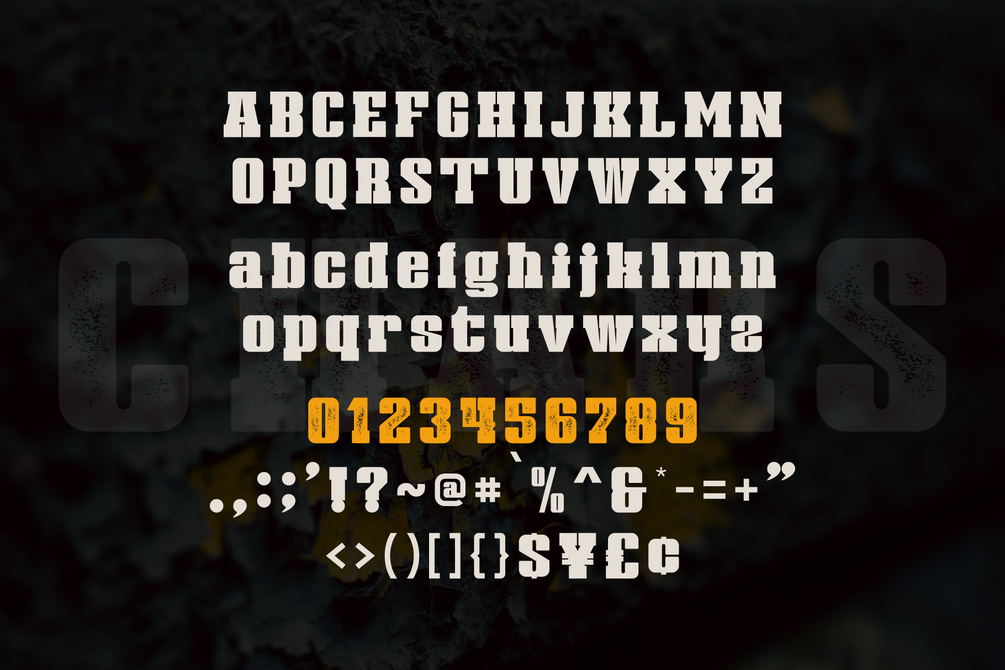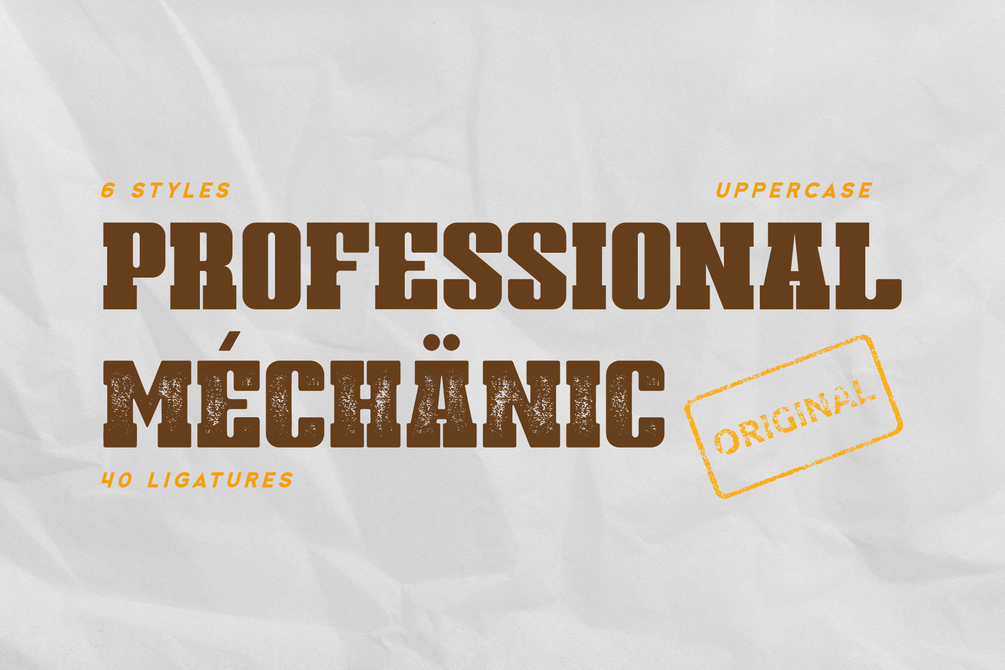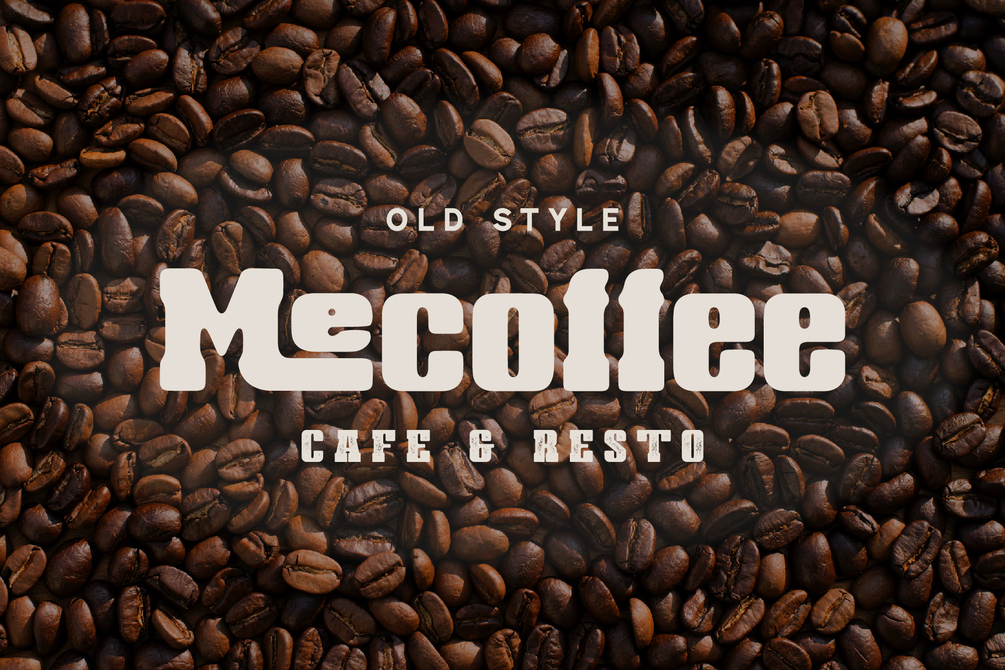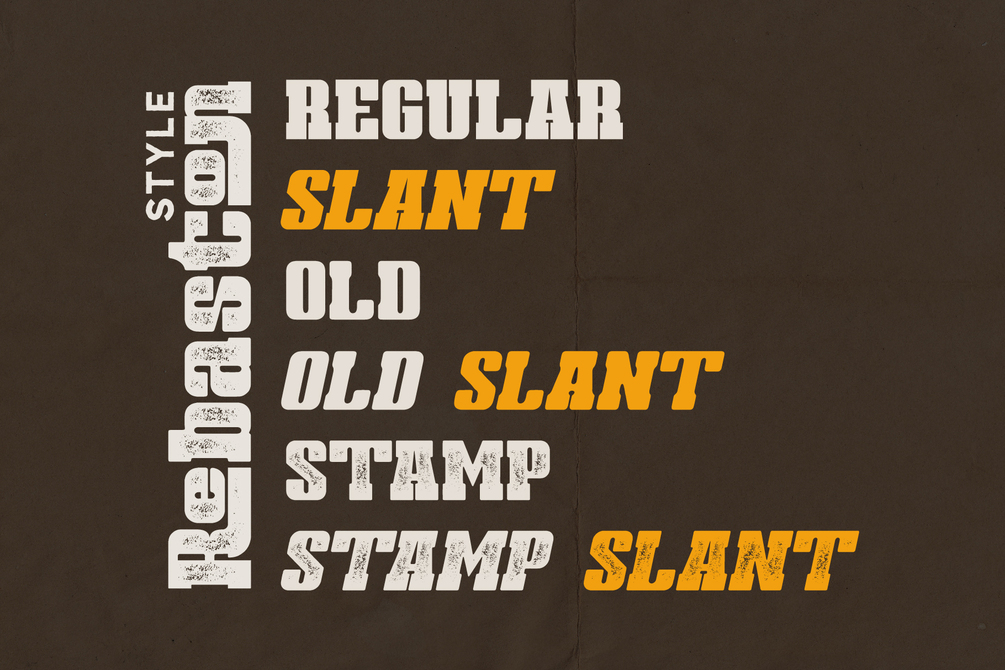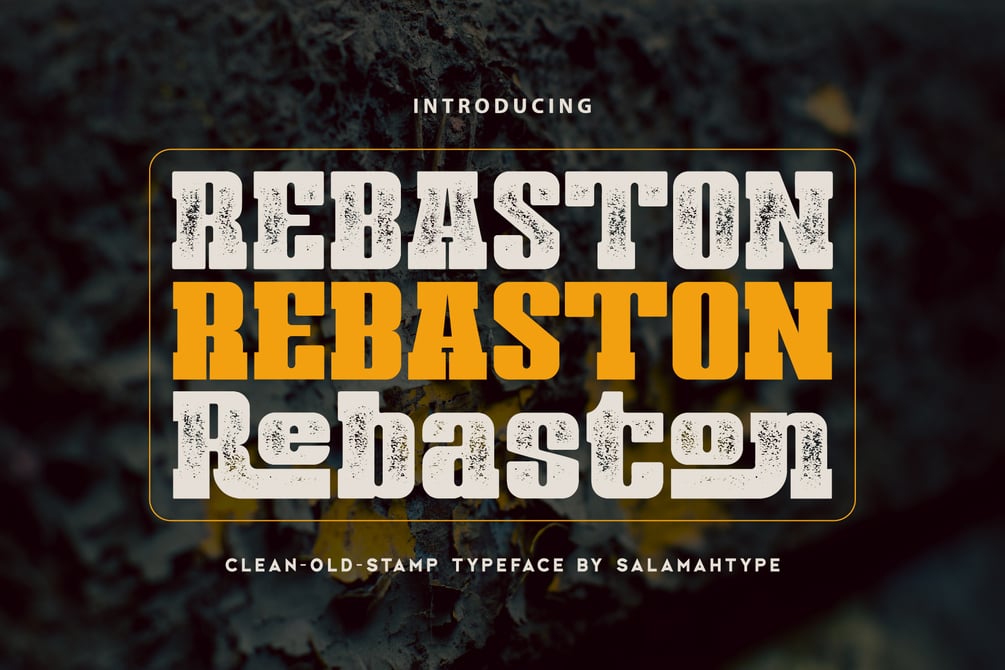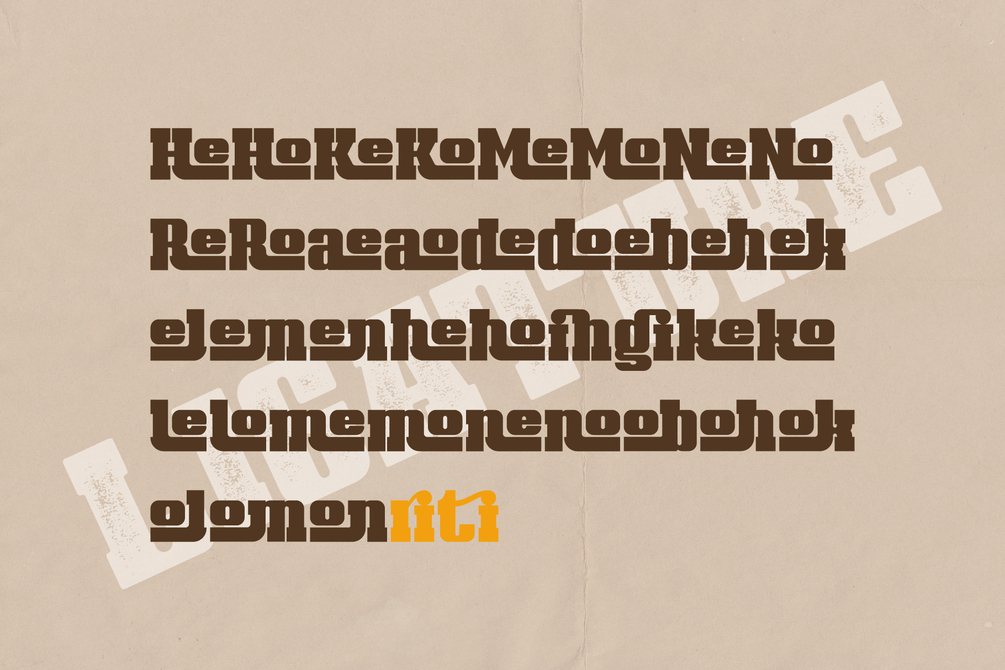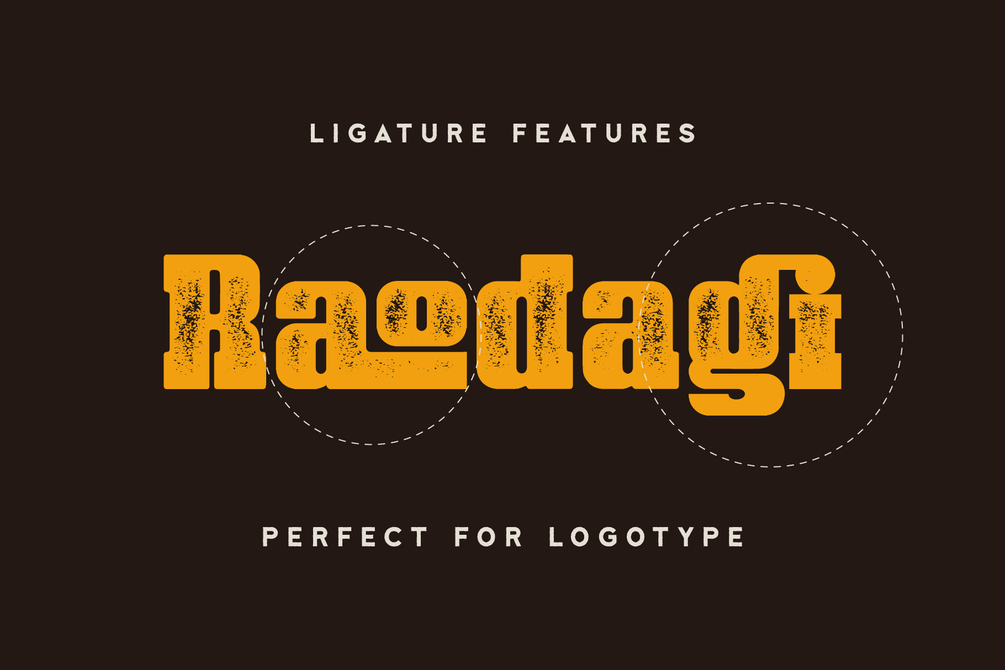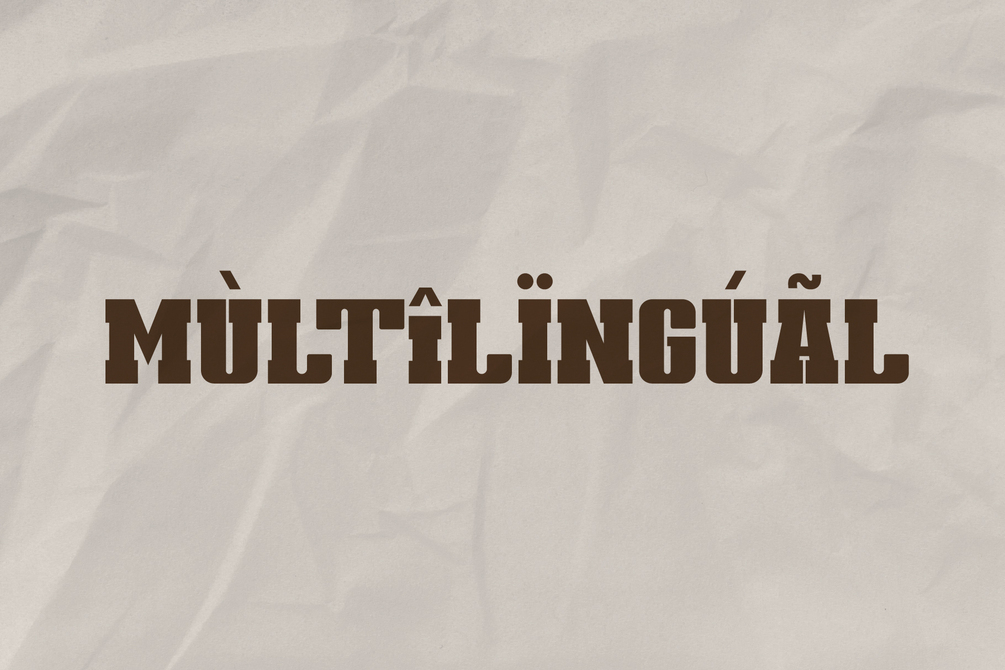
Rebaston - Textured Vintage Font
Rebaston is a display serif typeface with 40 ligatures and comes with a stamp style, which makes it perfect for developing logos and meeting a variety of branding needs. Its special stamp style gives your design a unique and classic touch.
• Uppercase and lowercase
• Punctuation and symbols
• Multilingual support
• 40 Ligatures